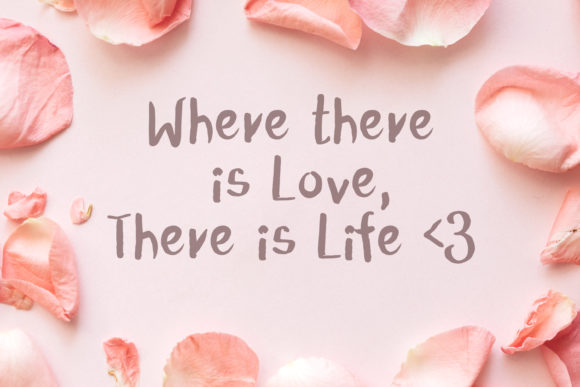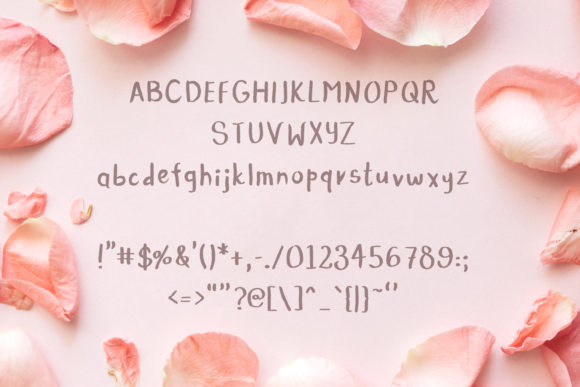
Introduction to Mamrotista Font
One of the key elements that can make or break a design is the font. And that’s where the Mamrotista Font comes in – a cute and casual handwritten font that exudes an incredibly friendly feel. With its gorgeous and unique style, this font is perfect for adding a personal touch to any DIY project. Whether you’re designing a wedding invitation, a birthday card, or a social media graphic, the Mamrotista Font is sure to bring it to life.
Key Features of Mamrotista Font
- Unique and creative design, ideal for artistic projects and designs that require a touch of elegance.
- Perfect for creative projects that require a sophisticated and modern look, such as logos, typography, and branding materials.
Honest Review: Mamrotista Font
I recently had the chance to work with the Mamrotista Font, and I must say it’s a great addition to my design resource collection. ✨ One of the things that stood out to me was the high quality of the font, which is perfect for any creative project that requires a unique touch.
- High-quality design: The Mamrotista Font is carefully crafted to provide a professional look and feel to any design project.
However, I did encounter a few limitations while working with the font. ⚠️ The font is not suitable for very small text sizes, and it may not be compatible with all operating systems.
Overall, I’m impressed with the Mamrotista Font and would highly recommend it to designers looking for a high-quality, free design resource. Its unique design and customizable features make it a great addition to any design project.
The Mamrotista Font is ideal for use in logos, branding materials, and other design projects where a high-quality, creative font is needed.